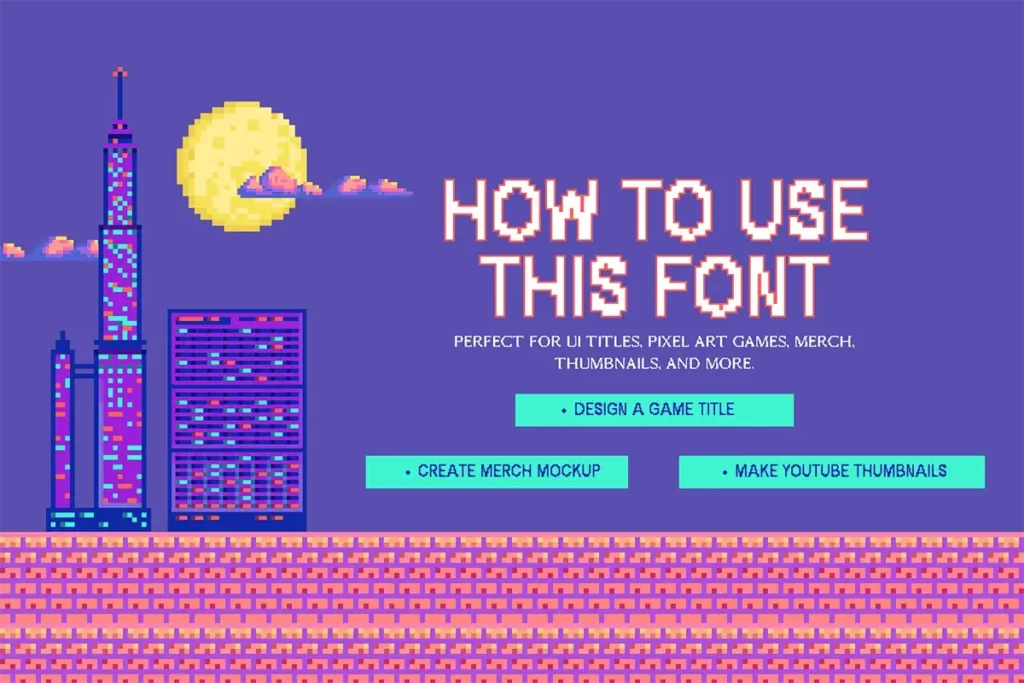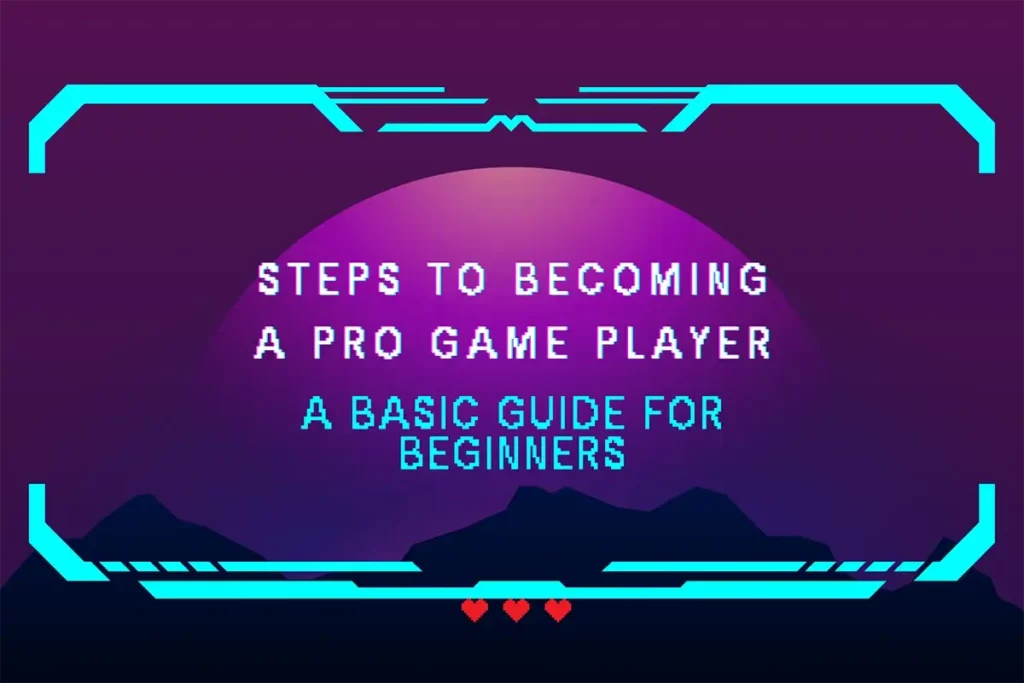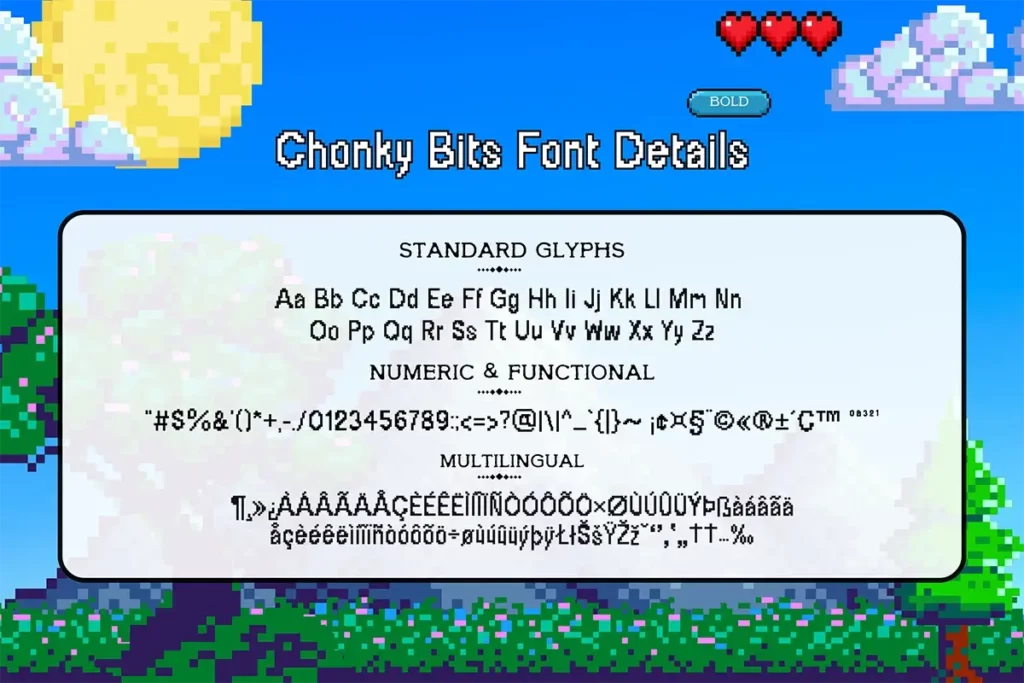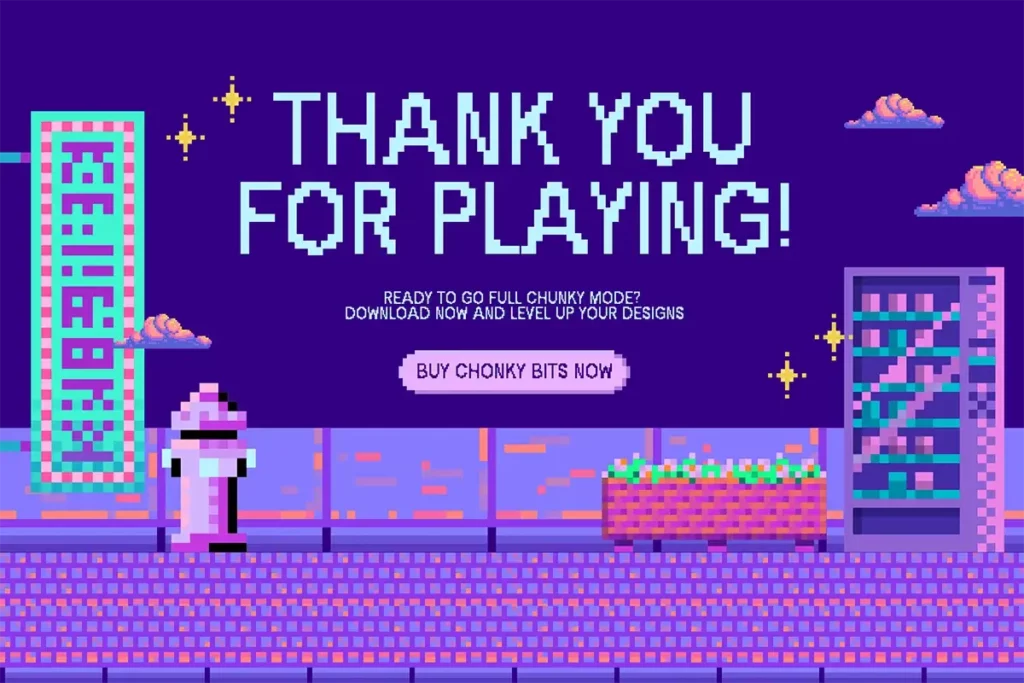
Chonky Bits Pixel Font
🎮 Chonky Bits Pixel Font is a retro font inspired by classic arcade vibes but crafted for modern design needs, this font is perfect for creatives looking to blend retro flair with pixel precision.
Step into pixel perfection with this font, a bold and bubbly 8-bit typeface designed to make your text stand out. With two unique weights — Regular and Bold — this font is packed with everything you need to build striking titles, vibrant UIs, nostalgic posters, game devs, designers, streamers, and nostalgic dreamers, This font brings back the feel of old-school arcades—with a modern, polished edge.